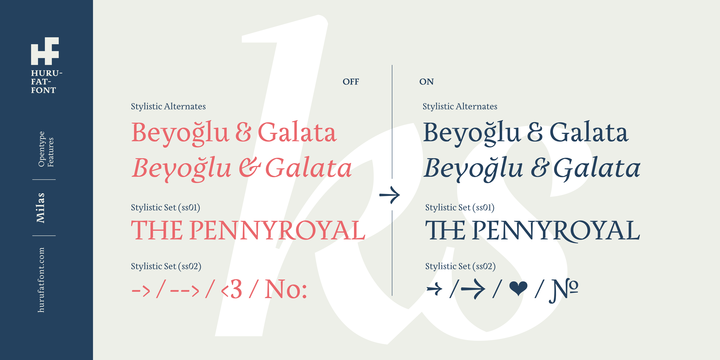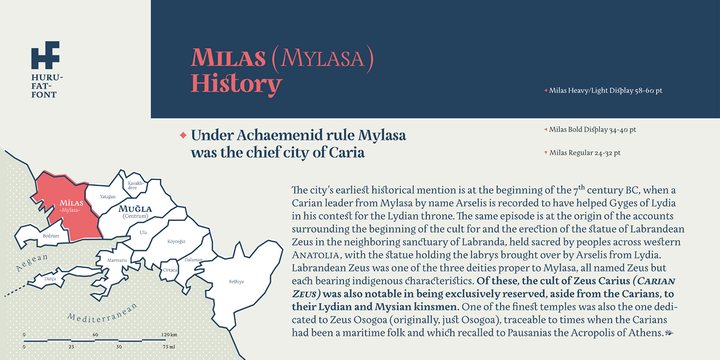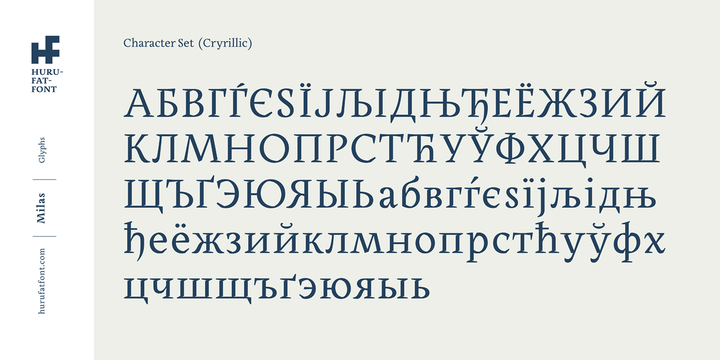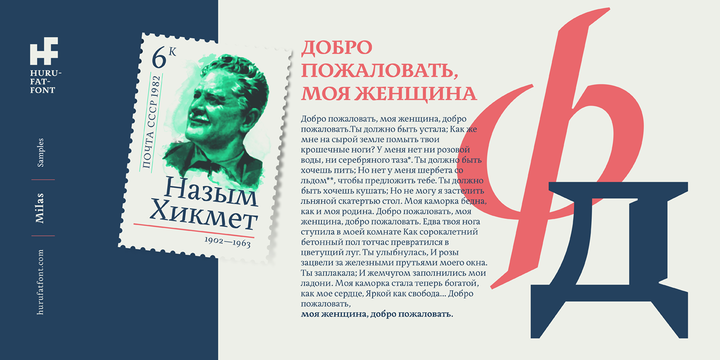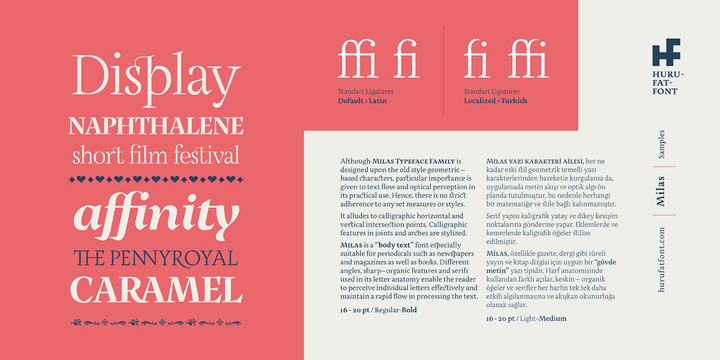
Milas Font Family
About this font family
Although Milas Typeface Family is designed upon the old style geometric – based characters, particular importance is given to text flow and optical perception in its practical use. Hence, there is no strict adherence to any set measures or styles.
It alludes to calligraphic horizontal and vertical intersection points. Calligraphic features in joints and arches are stylized.
Milas is a “body text” font especially suitable for periodicals such as newspapers and magazines as well as books. Different angles, sharp–organic features and serifs used in its letter anatomy enable the reader to perceive individual letters effectively and maintain a rapid flow in processing the text